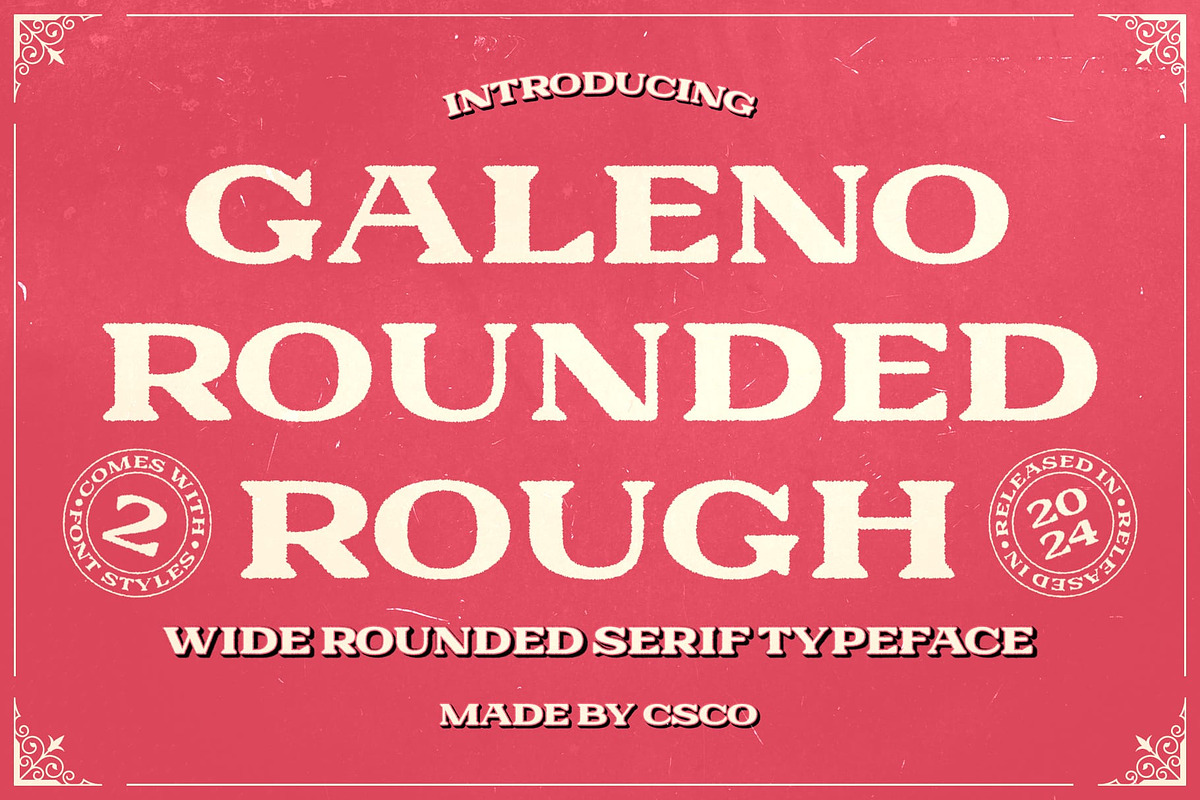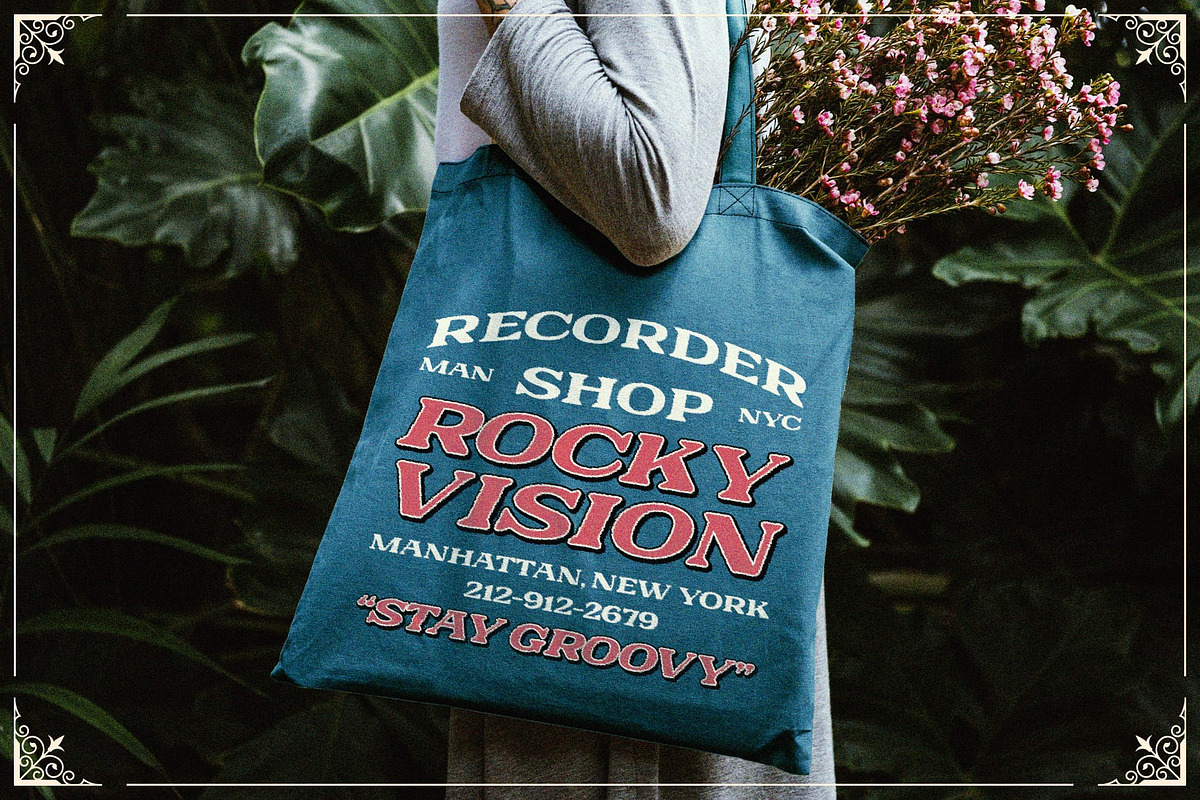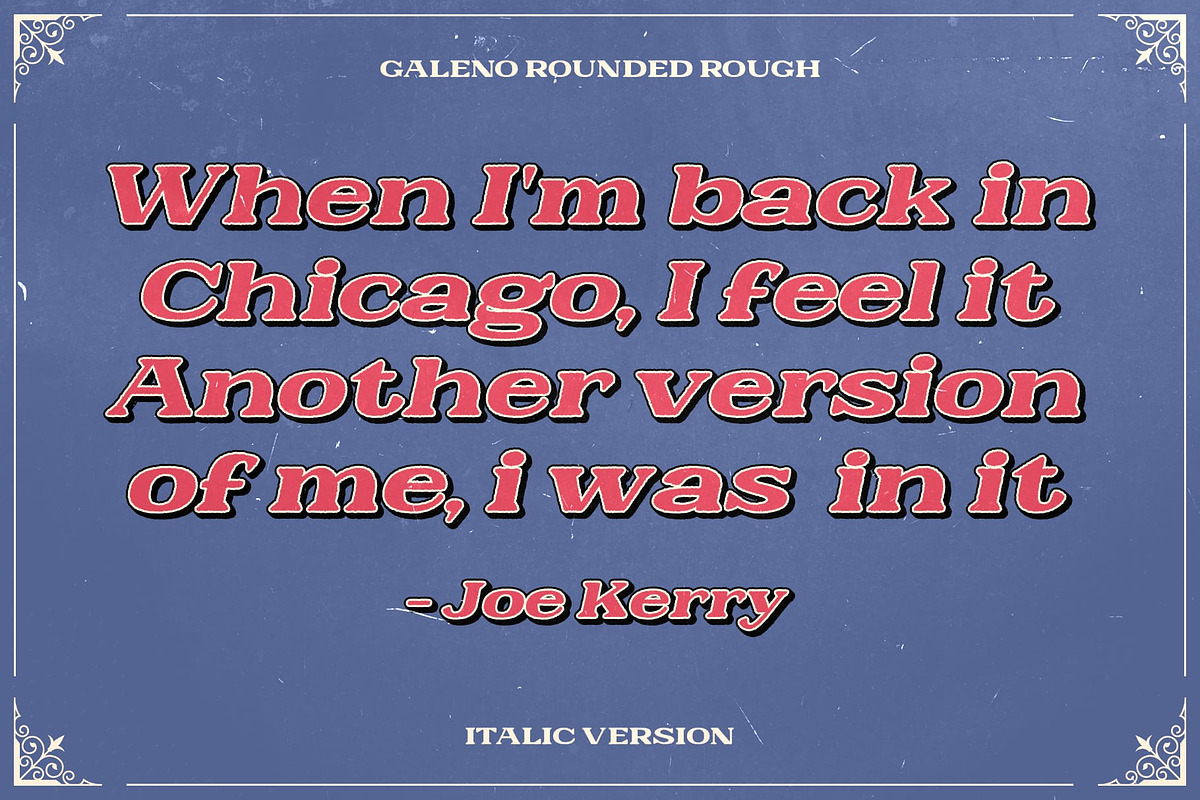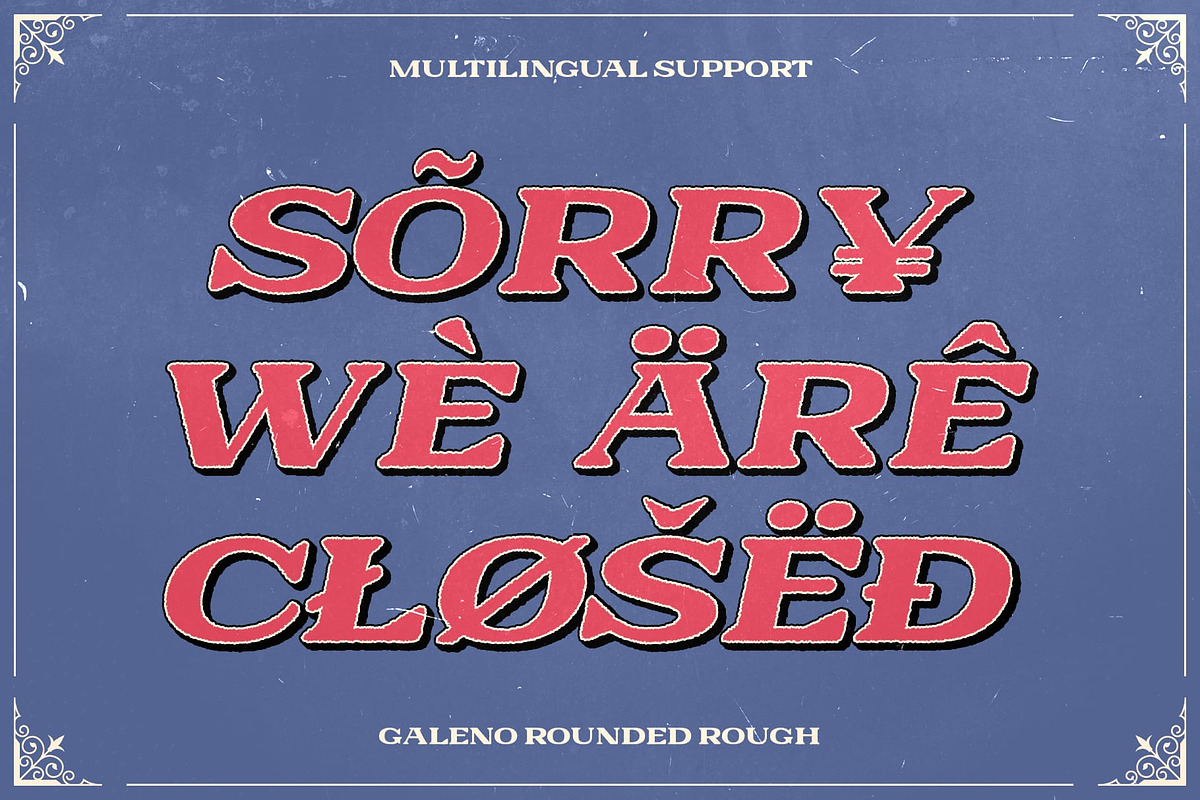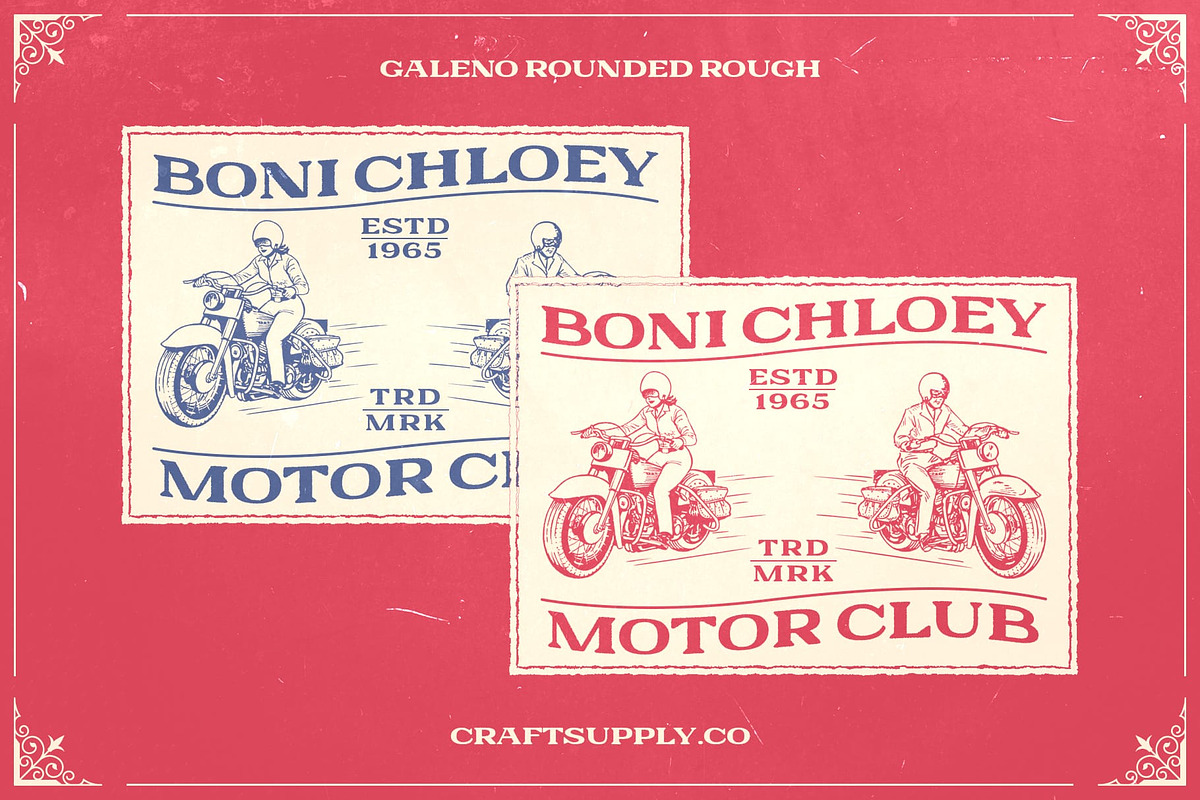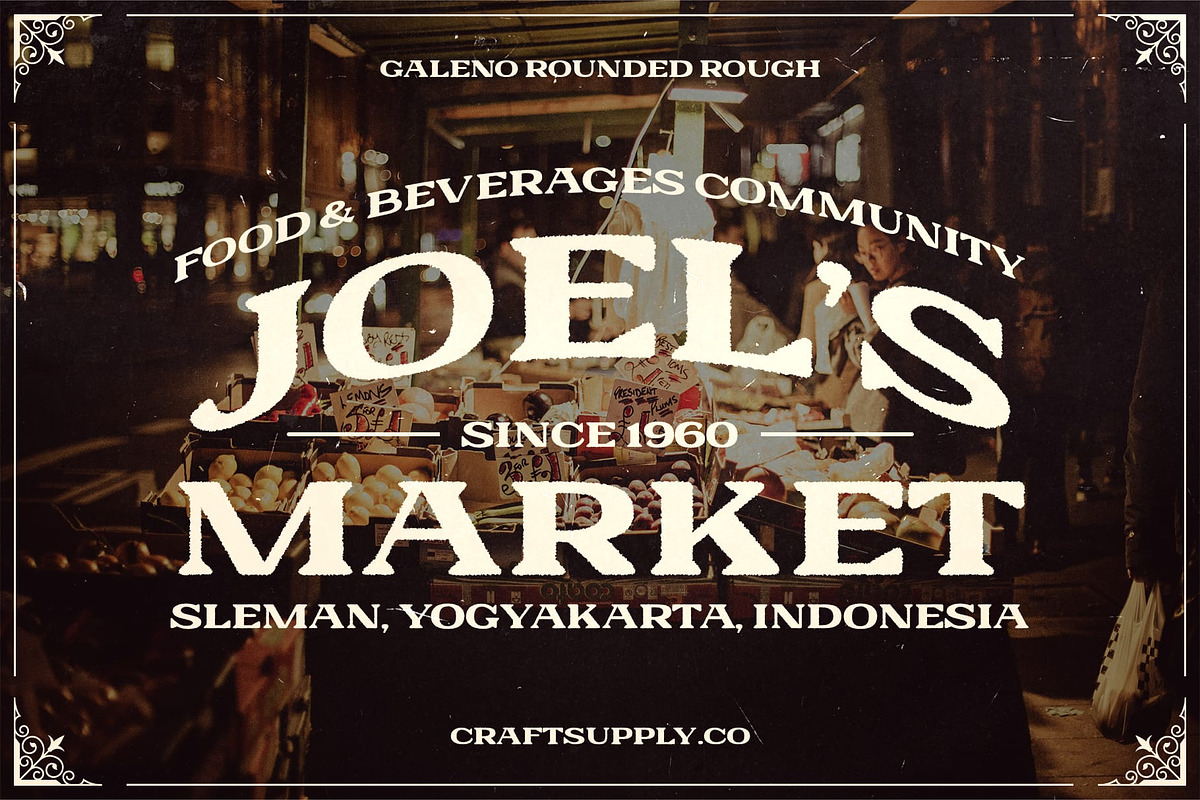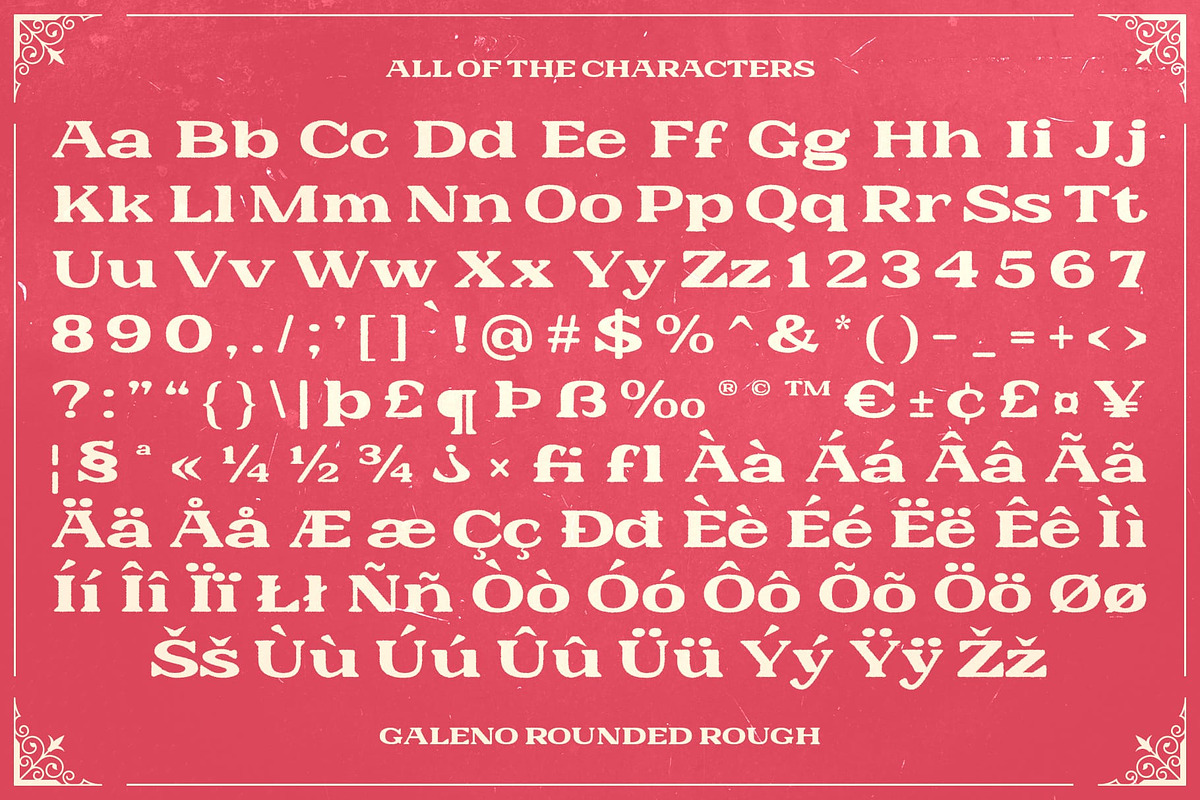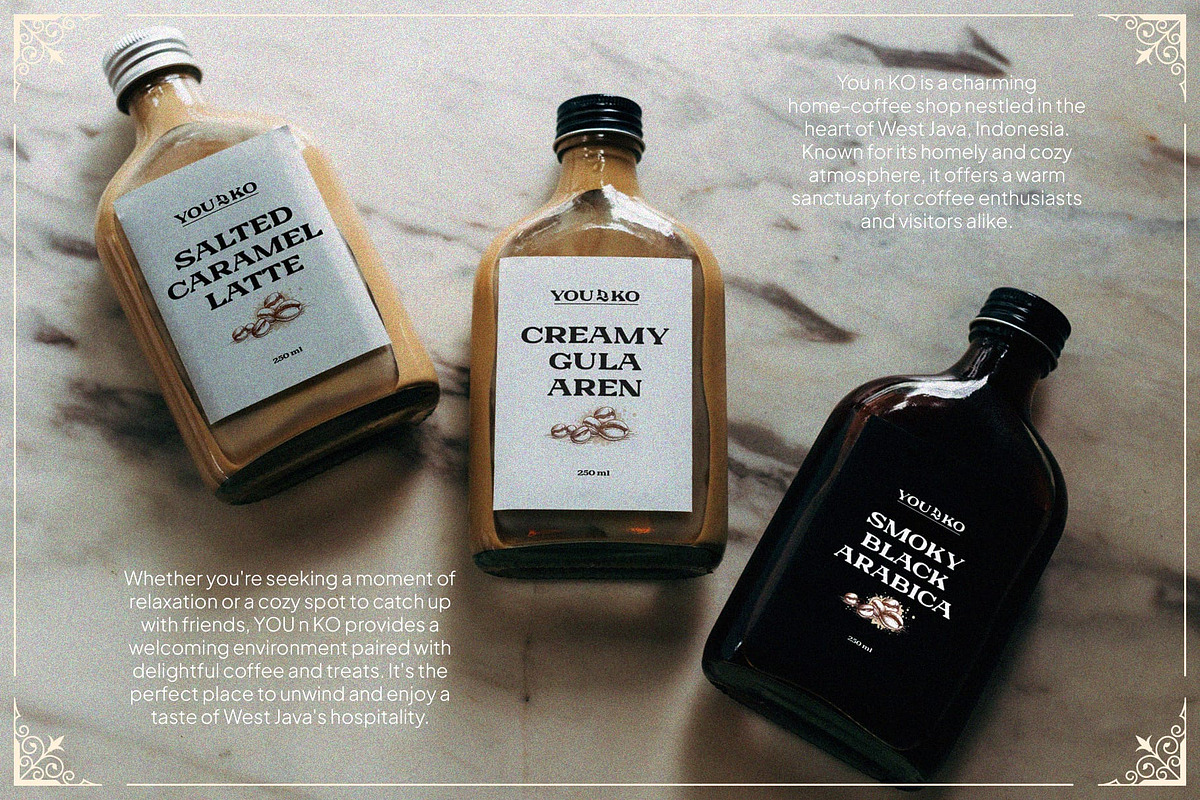
Galeno Rounded Rough
Galeno Rounded Rough: Nostalgic Charm with a Vintage Edge
Serif Font with Expanded Form Galeno Rounded Rough is a serif font designed to capture the essence of nostalgia with its expanded form and rounded edges. This font blends classic elegance with a distinctively weathered look, making it perfect for retro-themed projects that aim to evoke a sense of the past.
Expanded Form with Rounded Edges The font’s expanded letterforms offer a bold, retro aesthetic, while the rounded edges provide a softer, more approachable feel. The rough texture adds an authentic, aged quality, enhancing the font’s vintage appeal.
Rough Texture for an Aged Look Adding to its nostalgic allure, this font features a rough texture that gives the font a weathered, aged appearance. This textured effect adds depth and character, making it a standout choice for projects that benefit from a touch of rustic elegance.
Versatile for Retro-Themed Designs Whether used in branding, packaging, or editorial layouts, this rounded font offers versatility for a range of retro-themed applications. Its blend of classic serif elements with a unique, rough texture makes it suitable for designs aiming to bring a touch of the past into the present.